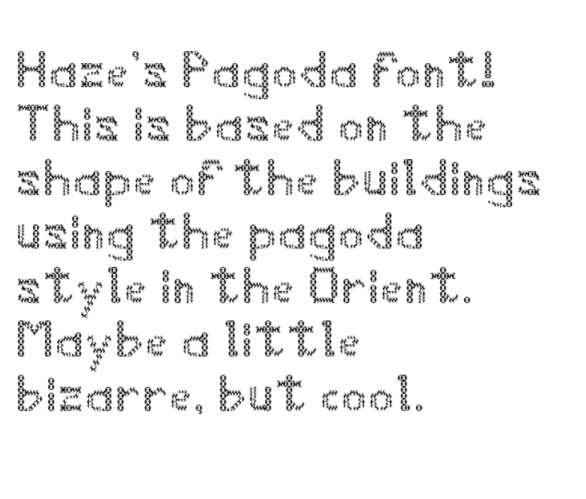
• Inspired by the pagodas of the orient. With several blocks that are stacked with the old and new blocks.
Come one, come all, let me know what you think!
Very interesting work!
This is a nice font!
Well, it took a while to complete the basic set, please let me know what you think.
HazesPagodaby jphturtle